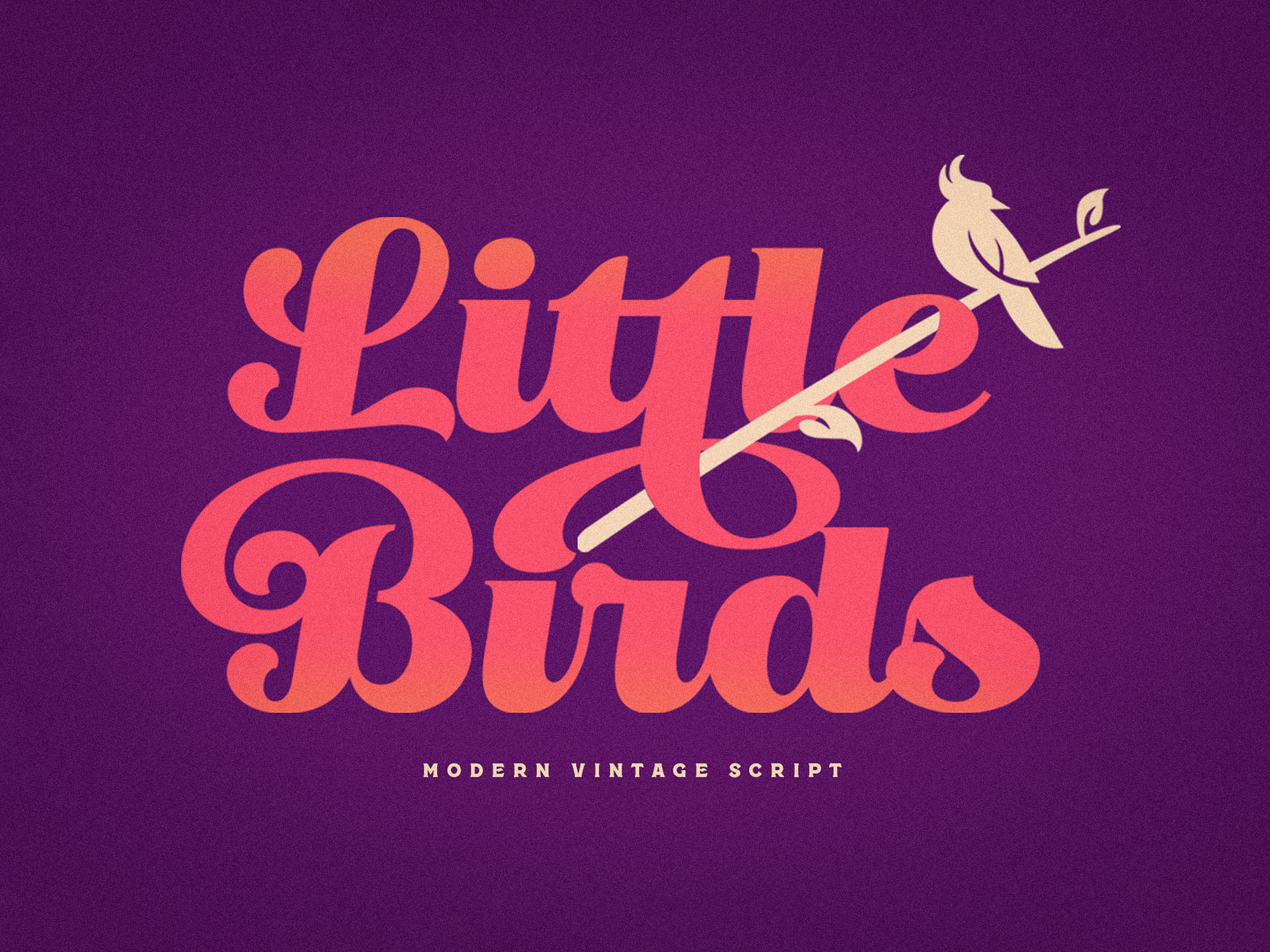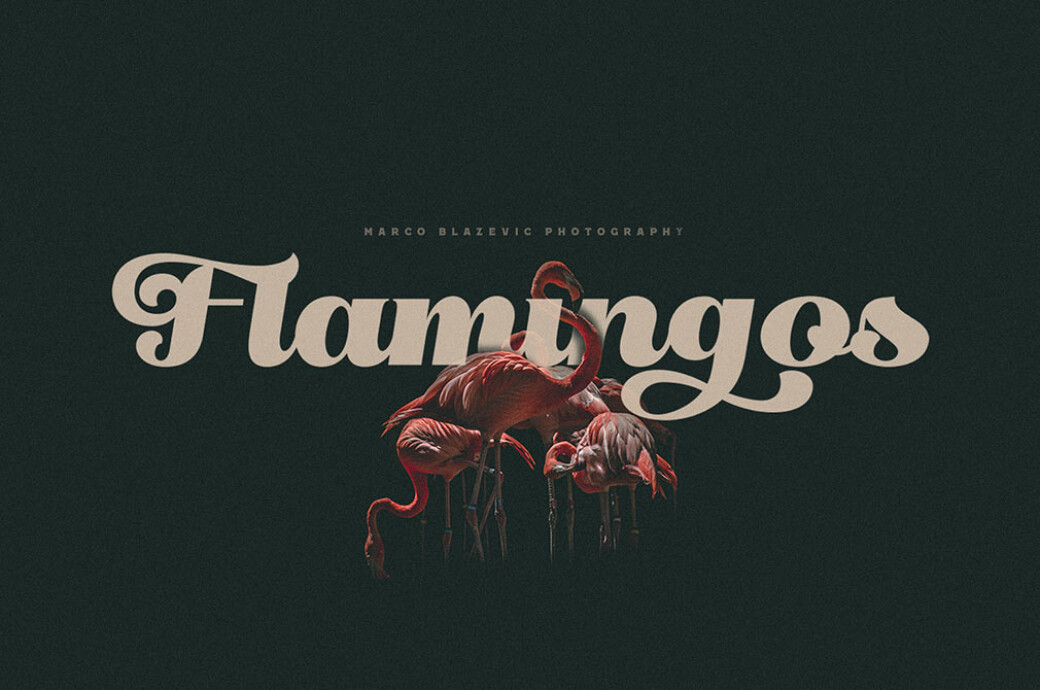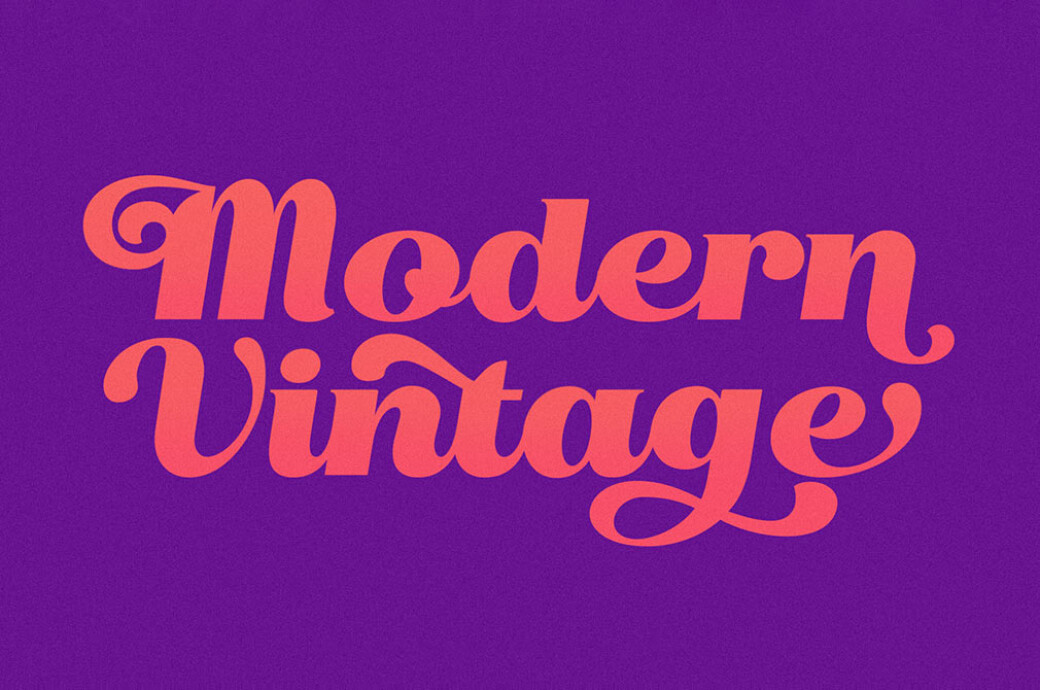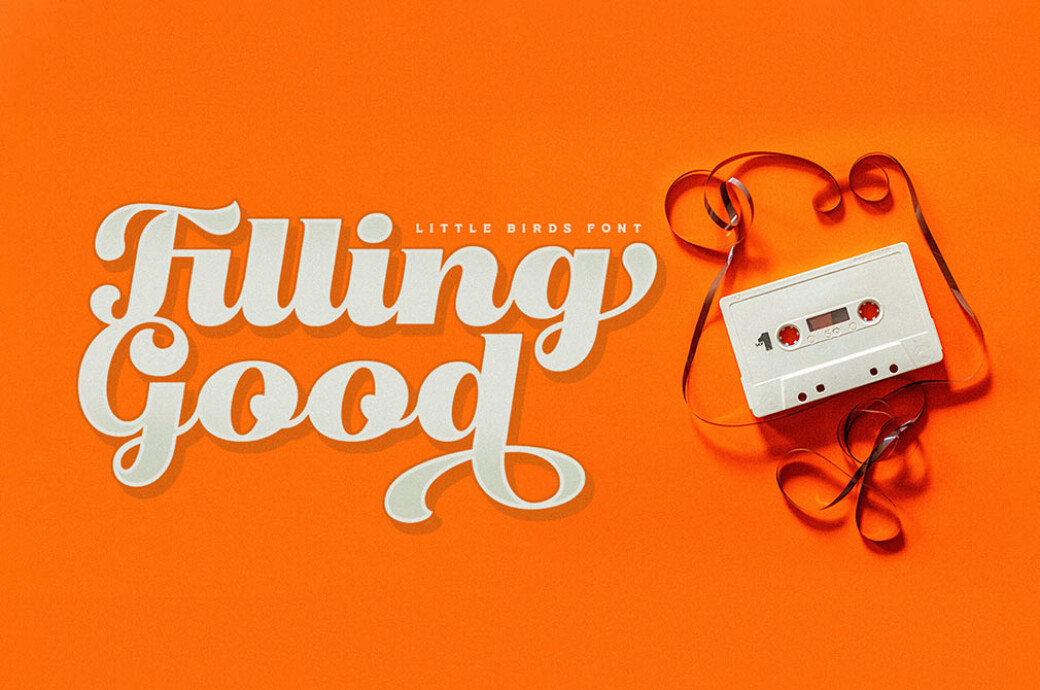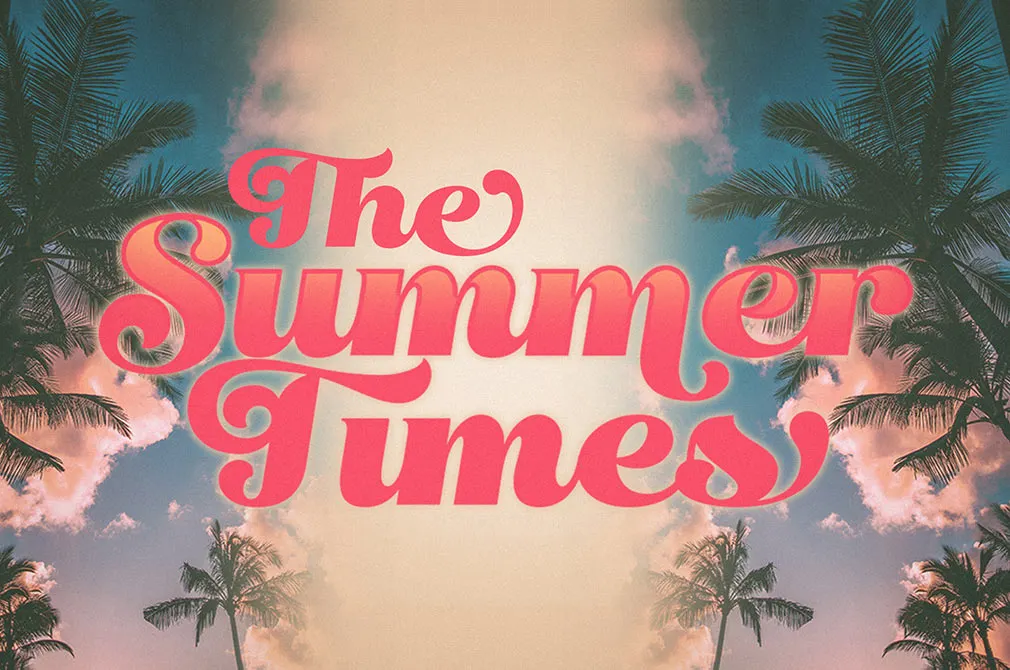
Little Bird: Vintage Script Font
What your hippie name would be: something plant or animal-related? There's plenty of time to decide because you've already found the script font to write it with and get all nostalgic about summer of love.In order to add a more decorative style to any of your upcoming projects, irrespective of their nature, sophisticated ligatures were applied, playfully inviting every character to dance. Remastered vintage typography will be able to breathe enthusiasm into a composition without giving it an old-fashion feel. Feel free to involve it in logotype/branding creation, print-ready designs and digital-only projects.